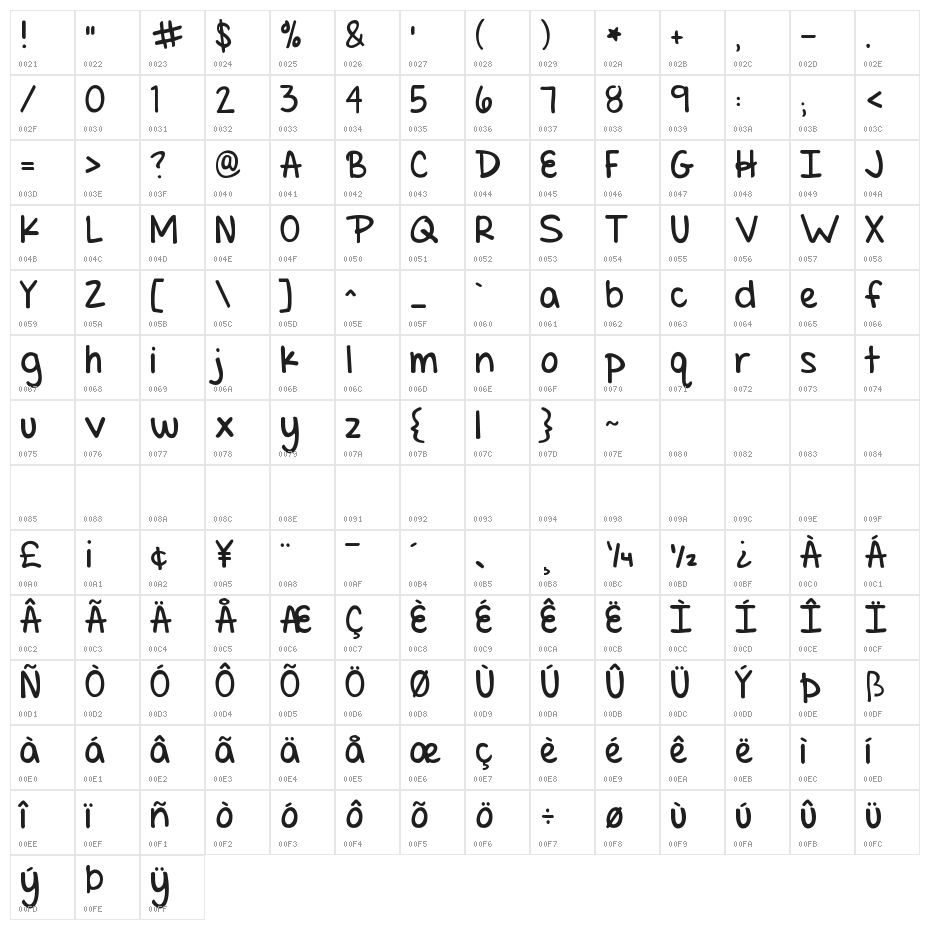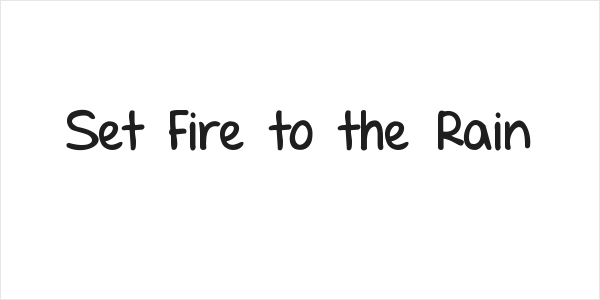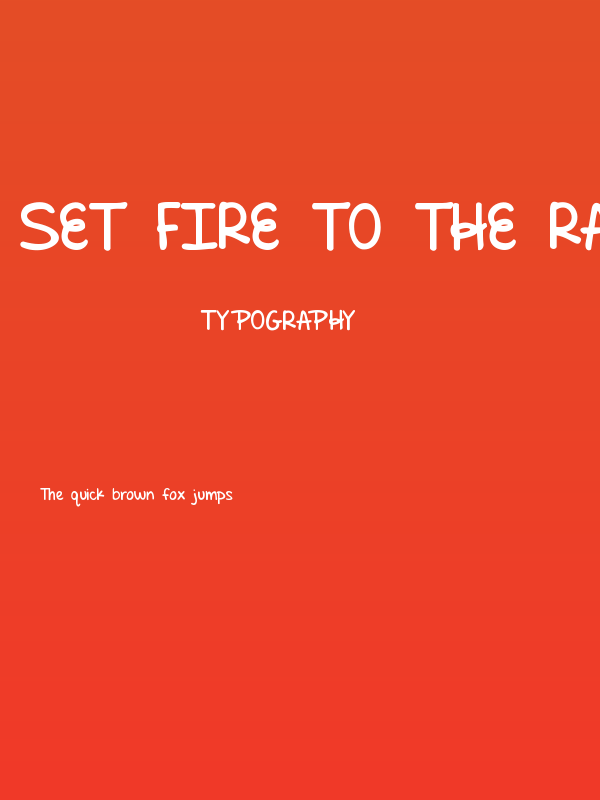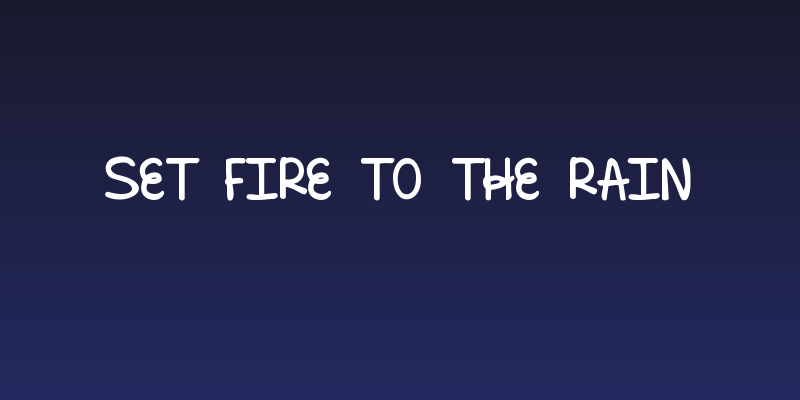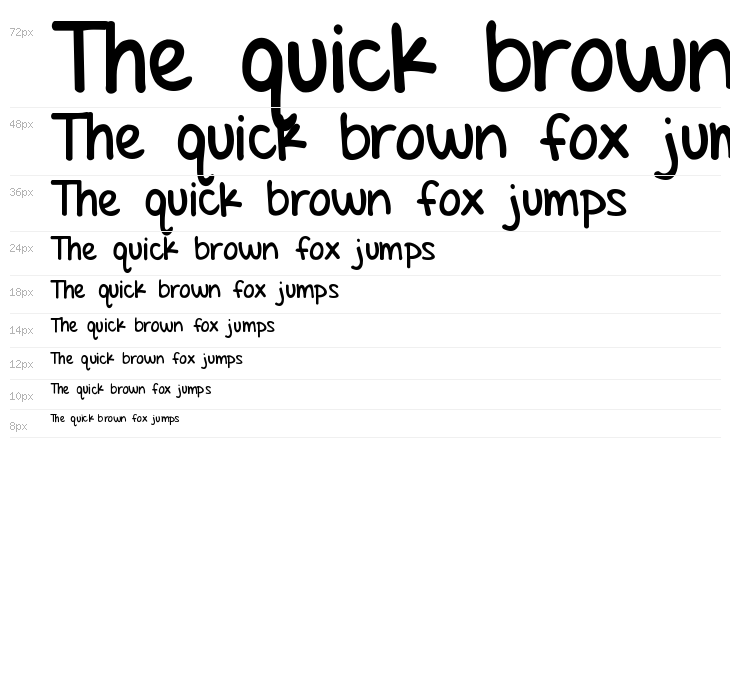
Set Fire to the Rain Font
Set Fire to the Rain Description
This playful and casual font features rounded edges and a hand-drawn aesthetic, giving it a friendly and approachable feel. The uppercase and lowercase letters are consistent in style, with a slight tilt that adds to its informal charm. The numerals and special characters maintain the same whimsical quality, making the font versatile for various creative applications. Its bold strokes ensure readability while retaining a unique personality. The font's overall appearance is reminiscent of handwriting, making it suitable for projects that require a personal touch.
| Proposed Projects | Ideal for children's books, greeting cards, playful branding, and informal invitations. |